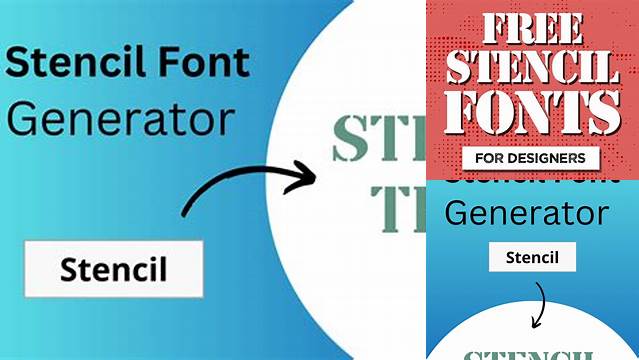
Free Stencil Font Generator: Create Stencil Fonts Easily
What are Stencil Fonts?
Stencil fonts, also known as template fonts, are a unique style of typeface characterized by breaks or gaps in their letters. This design mimics the look of letters cut out of a stencil, hence the name. The primary purpose of these gaps is to prevent the inner parts of letters like 'O', 'P', and 'A' from falling out when a physical stencil is used. This gives stencil fonts a distinctive, industrial, and sometimes military-inspired feel.
The history of stencil fonts is quite fascinating. They have been around for centuries, traditionally used for labeling crates, boxes, and military equipment. The practicality of stencils allowed for quick and repeatable application of text, making them invaluable in various industries. Over time, stencil fonts have evolved from purely functional to highly stylistic, finding their place in graphic design, branding, and artistic projects. Their robust and utilitarian aesthetic has made them a favorite for projects that require a touch of ruggedness or an industrial vibe.
Today, stencil fonts are incredibly versatile. They can be used in a wide array of applications, from logos and signage to posters and digital designs. The unique look of stencil fonts makes them stand out, adding a distinct character to any project. Their bold and graphic nature ensures readability while maintaining a strong visual impact. Whether you're designing a poster for a rock concert or creating a logo for a construction company, stencil fonts can provide the perfect blend of practicality and style. The breaks in the letters add an element of visual interest, making the text more dynamic and engaging. In short, stencil fonts offer a powerful way to communicate a message with a touch of edginess and authenticity.
Why Use a Stencil Font Generator?
Using a stencil font generator can be a total lifesaver, especially when you're looking to create custom designs without spending a fortune. These generators offer a fantastic way to experiment with different styles and variations of stencil fonts, ensuring you find the perfect fit for your project. The best part? Many of these tools are available online for free, making them accessible to everyone, regardless of their budget or design experience.
Another significant benefit is the sheer variety of fonts available. Stencil font generators often host an extensive library of typefaces, ranging from classic military styles to more modern and artistic interpretations. This variety allows you to find a font that perfectly matches the tone and style of your project. Whether you need a bold, industrial font for a construction company logo or a more refined stencil font for a vintage-themed poster, you're likely to find it in a font generator.
Customization is another key advantage. Many generators allow you to tweak various aspects of the font, such as letter spacing, stroke width, and the size and placement of the stencil breaks. This level of control enables you to create a unique font that perfectly aligns with your design vision. You can experiment with different settings to achieve the exact look and feel you want, ensuring your final product is truly one-of-a-kind. This flexibility is invaluable for designers who want to push creative boundaries and develop unique typography.
Additionally, stencil font generators save you time. Instead of spending hours searching through endless font libraries or trying to create a stencil effect manually, you can quickly generate a font that meets your needs. This efficiency is crucial when you're working on a tight deadline or juggling multiple projects. The ability to generate fonts quickly and easily allows you to focus on other aspects of your design, ultimately leading to a more polished and professional final product.
Top Free Stencil Font Generators Online
Alright, let's get to the juicy part – where to find these free stencil font generators! The internet is brimming with options, but to save you some time, I've rounded up some of the top contenders that offer a great mix of quality, variety, and ease of use.
FontStruct: FontStruct is a fantastic browser-based tool that lets you build your own fonts using geometric shapes. It's incredibly user-friendly and perfect for creating unique stencil fonts. The interface is intuitive, allowing you to easily manipulate shapes and create intricate designs. One of the best features of FontStruct is its community aspect. Users can share their creations, and you can browse through thousands of fonts made by other designers. This can be a great source of inspiration and can also help you find ready-to-use stencil fonts. If you're feeling creative, you can start from scratch and design your own typeface, or you can modify an existing font to suit your needs. FontStruct's grid-based system makes it easy to align shapes and create precise, professional-looking fonts. The platform also offers detailed tutorials and guides to help you get started, making it accessible even if you have no prior font design experience.